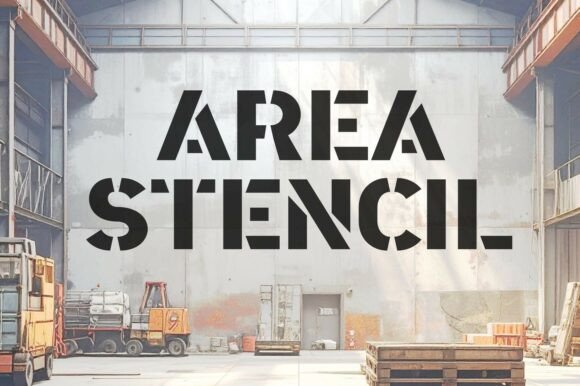
Introducing Area Stencil: The Ultimate Industrial Display Font
Area Stencil is a powerful and industrial-inspired display font that exudes a distinctive, utilitarian aesthetic. Its bold, uppercase letterforms feature classic stencil cutouts, giving it a raw, ‘no-nonsense’ appearance that evokes military precision, urban grit, and manufacturing tags. The strong, unyielding presence of this font ensures that messages are conveyed with authority and a sense of enduring strength.
- ✨ Bold and eye-catching: Area Stencil is perfect for making a statement with your designs.
- ✅ Highly legible: Even at smaller sizes, the font remains clear and easy to read.
- 💯 Versatile: Suitable for a wide range of projects, from branding and apparel to signage and outdoor gear.
- 🔍 Detailed craftsmanship: Meticulously designed to retain its characteristic segmented look.
- ⚠️ Limited character set: As a display font, Area Stencil only includes uppercase letters, numerals, and essential punctuation.
- ⚠️ Not suitable for body text: Due to its bold and segmented nature, Area Stencil is best used for headlines and titles.
The Story Behind Area Stencil
Area Stencil was inspired by the raw, industrial aesthetic of urban landscapes and military equipment. Its designer aimed to create a font that would evoke a sense of strength, precision, and durability. The result is a font that’s perfect for projects that require a bold, rugged, and utilitarian feel.
- Q: What is the character set of Area Stencil?
- A: Area Stencil includes a comprehensive set of uppercase letters, numerals, and essential punctuation.
- Q: Can I use Area Stencil for body text?
- A: No, Area Stencil is best suited for headlines and titles due to its bold and segmented nature.
- Q: Is Area Stencil suitable for outdoor gear branding?
- A: Absolutely! Area Stencil’s rugged and industrial aesthetic makes it perfect for outdoor gear branding.